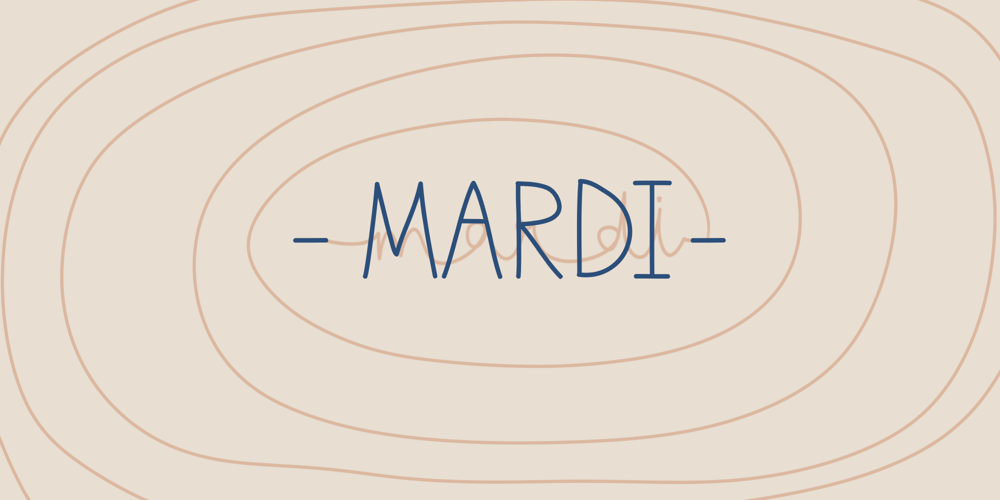
Mardi Font Family was designed by Arirat Ditsayaburt and published by JustEllie. Mardi contains 1 styles and family package options. Download this font to make your note-taking easier, faster, and still look like they’re neatly handwritten. Perfect handwriting font for student notes, digital planners, general note-taking, and more! Compatible with all devices.